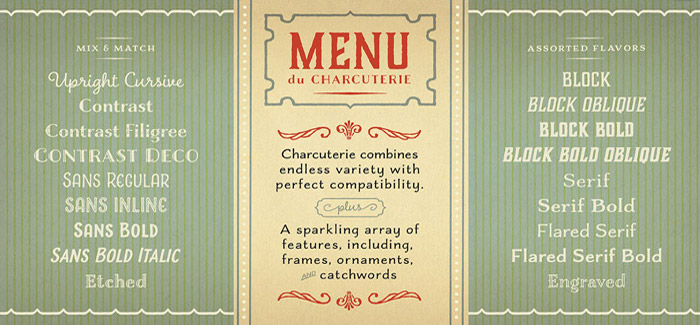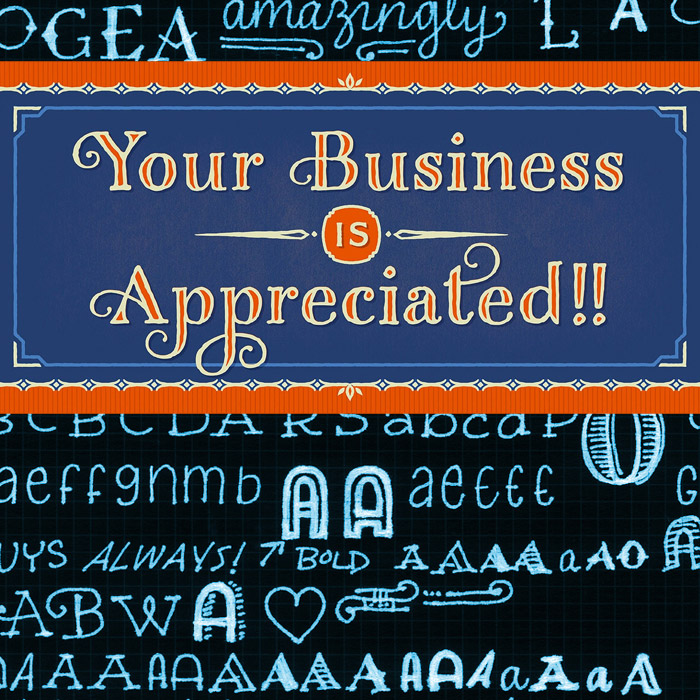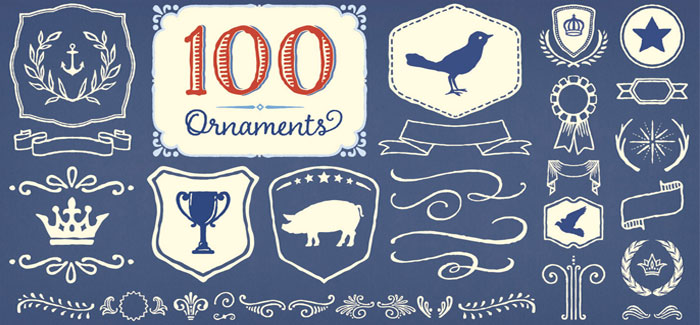
Laura Worthington Interview by Fontmatters presenting the Charcuterie type platform
Laura Worthington (lauraworthingtontype.com) doesn’t need to be introduced to our dedicated audience – she is a renowned artist with her remarkable work in typography and hand-lettering. Origins, Recherche, Samantha Script – these are some of the best examples of Laura’s work. All of them became best-sellers because of their originality, flexibility and authentic look. Her latest impressive and sophisticated work – the Charcuterie font platform – was the reason to make our very first interview with Laura Worthington. We tried to think of interesting and different questions that will give you a different point of view to her marvelous work. Enjoy!
Tell us what is the story behind – how did you decide to create the Charcuterie Type Platform?
Last year I came up with an idea to create a handwriting super family – it would contain several weights, widths and styles and all be based on one primary design, as most super families are. The idea stemmed from the sketchbooks I had kept over the years. From elementary school on, I would take elaborate notes, using various handwriting styles to illustrate my thoughts. I realized that this style/concept could be fun and useful in the course of advertising, packaging, and so on.
I spent a lot of time filling pages full of handwriting to bring this idea to life. As it started coming together, I began to realize that although the concept was interesting, the design itself was, well… boring!
However, I felt that there was merit to the original concept – it just needed to go a different direction. Focusing on only one primary design was part of the problem, the other part was not having enough personality.
I conducted more research on times when hand lettering styles were commonly mixed together in advertising, and it brought me to the early 1900s.
I still wanted it to have a handwritten/hand lettered look and feel to it, so I filled up a pad of graph paper with loads of old timey writing styles with my favorite fountain pen, scanned it in, and the rest is history!
I worked on all of the designs at once (something I had never done before, I typically work on one design at a time to avoid distraction) to ensure they were all distinct from one another, yet related.
Do you think it is correct to describe the Charcuterie as “type platform”.
Charcuterie represents the typography of early 1900s. How do you feel related with those times?
I grew up in a house built in the 1920s and surrounded by antiques and other vintage items. My mother had a collection of catalogs printed during that time period and I loved how they did advertising back then.
You have created a sophisticated type system – are you going to turn this into your own manner of work and do you believe that creating type system is the future of modern type design?
Good question! I hadn’t given it much thought until now, as I wanted to see if the concept would be successful or not. I had my doubts as to how it would come across, especially since distributors limit the initial font preview to one design, and this one has 13 designs. I worried that the other designs would get lost. So I decided that I would let the marketplace determine the success of the concept. It’s good to take risks!
It seems to be selling well now, so I probably will design other type systems in the future!
Did you know that the Charcuterie is a dream-come-true for every ordinary designer or you thought of this right when you got started?
That’s so nice of you to say that! I was a graphic designer for 15 years before I became a type designer and so I pull from my experience in that world when designing type. I often think back to how I used type, what was helpful to me, what I wanted more of in a font, and so on. I loved having access to a pre-set collection of elements that were specifically designed to go together – it made laying out a page so much easier and the design more cohesive.
Do you think that Charcuterie will let designers who don’t have special skills in typography and calligraphy act like professional type designers and lettering artists?
To an extent, yes! Charcuterie takes the guesswork out of finding fonts that complement one another in a layout.
There is a movement of revival these days – do you feel like part of it and are you happy that your work allows people to get closer to they roots, crafts and arts?
There has been a recent draw back to the days where most everything was handmade and one-of-a-kind. I think this nostalgia is a rebound effect as now, most things are mass produced. Most people have a desire to own something that is unique and hand crafted – to express ourselves and reflect the individuality that we all possess. This is as true with physical products as it is with type. Although all fonts are handmade, some carry through the hand-crafted look more than others, and so they have a special appeal, as does Charcuterie.
What will be your next strike, Laura? Tell us some more about your future plans.
I like to experiment with different styles, so it’s hard for me to say until I sit down to sketch and/or hand-letter my next creation. I think my next design will be a big, fancy, flourishy script though, but we’ll see. Expect another addition the Wallflowers series soon and I’m planning on doing more in the ways of adding decorative elements to all of my fonts too.
Our final question – do you believe that every font matters?
Absolutely!